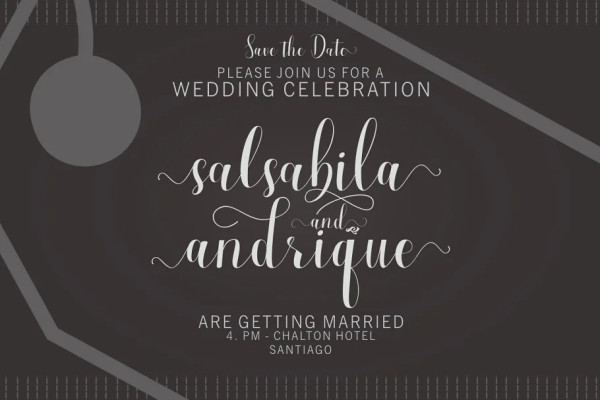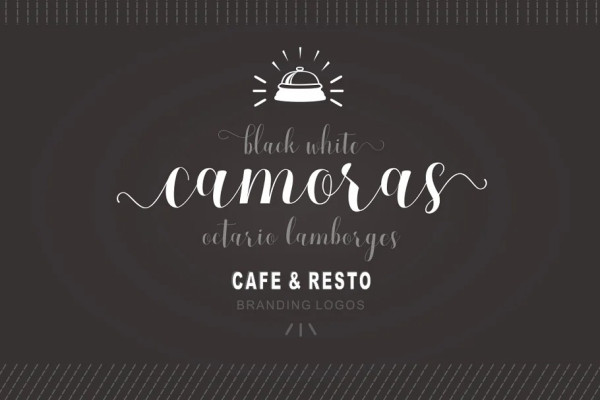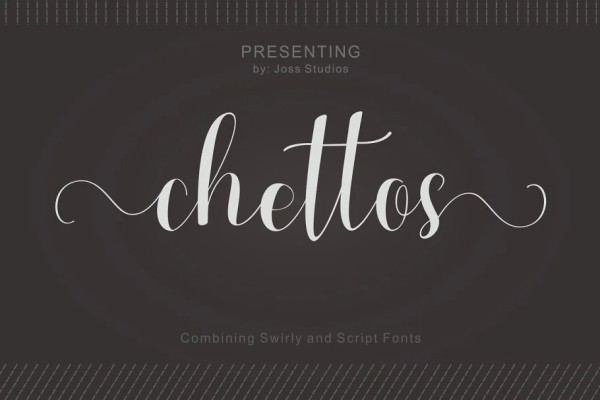
Chettos Font
Chettos Font, Hand Lettered Calligraphy Font with beautiful waves and natural flow. has a unique letter style, with natural handdrawn, and has a softer and smoother character subtly connect all the characters.
They have a simple elegant swashes in separate letters, you can use graphic design software to access the alternate letter.
Chettos Script is perfect for weddings, invitations, greeting cards, quotations, posters, branding, business cards, stationary, title design, header blog, excerpts of art, the art of typography, letter envelopes modern or design books, occurred styles such as design handdrawn, title , letter marriage, pop vintage design, or purpose to make the project/art design we look beautiful and trendy.
Chettos Script comes complete with 259 glyphs. This includes uppercase, lowercase, numbers, fractions, punctuation, multi-language support. and some other flying machines are variations that part of OpenType features such as; Standard ligatures, stylistic set, alternative style.